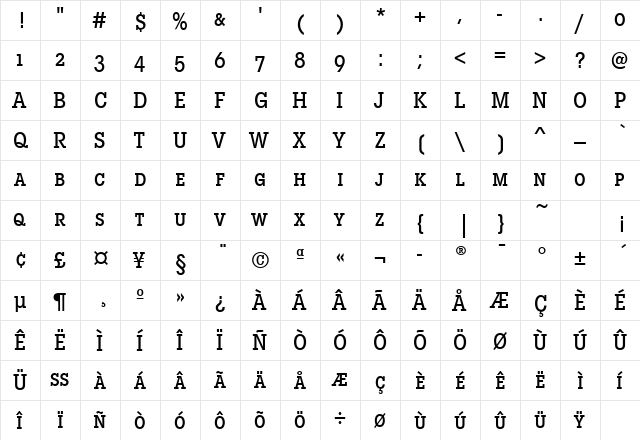
LubalinGraphMdCdSCITCTT Regular Font Preview
LubalinGraphMdCdSCITCTT Regular
LubalinGraphMdCdSCITCTT Regular Font Details
Design Context for LubalinGraphMdCdSCITCTT Typeface
LubalinGraphMdCdSCITCTT offers clean, dependable letterforms without strong stylistic allegiance, making it a practical choice for designers who need flexibility.